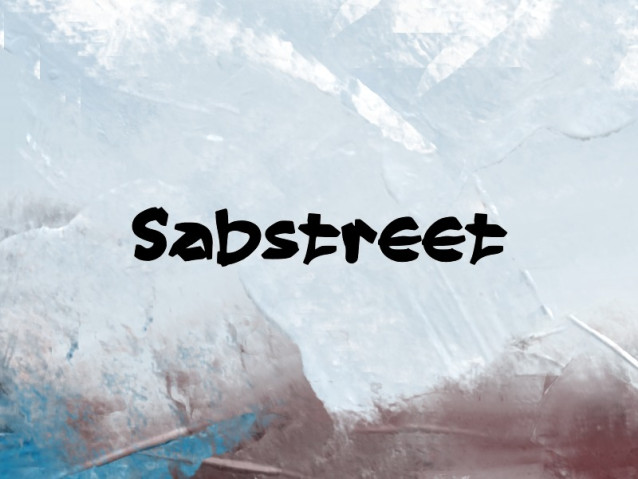
Sabstreet Font
Sabstreet Font is a dynamic display font that perfectly captures the raw energy and creative freedom of modern urban culture. Inspired by contemporary graffiti and street art, this typeface is designed for creators who want their message to stand out with an edgy, rebellious attitude.